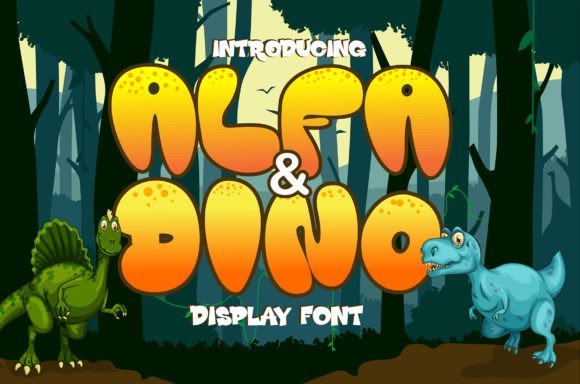
That’s where the Alfa and Dino Font comes in – a cool, incredibly cute and bubbly display font that’s perfect for adding a touch of whimsy to your designs. Whether you’re creating party invitations, social media graphics, or promotional materials, this font is sure to bring a smile to your audience’s faces. And for designers, it’s a valuable asset that can help you stand out from the crowd and create truly memorable designs.
Alfa and Dino Font Key Features
- Unique Characteristics: This font features a unique blend of modern and vintage elements, with distinctive letterforms and ornaments that evoke a sense of nostalgia and playfulness.
Designer Review: Alfa and Dino Font
First off, I want to say that I’m a fan of this font. It has a certain retro charm that can be quite appealing in the right context. ✨ The Alfa and Dino Font has a fun, carefree vibe that’s perfect for casual projects or designs where you want to add a bit of whimsy.
Here are some of the things that I think work well in this font:
- ✨ Unique character set: The font has a distinctive set of characters that are sure to stand out.
- ✨ Good legibility: The font is easy to read, even at smaller sizes.
- ✨ Versatility: Alfa and Dino Font can be used in a variety of contexts, from logos to body text.
Of course, no font is perfect, and Alfa and Dino Font has its limitations:
- ⚠️ Limited font weights: The font only comes in a few weights, which may limit its use in certain projects.
- ⚠️ Not suitable for formal designs: The font’s playful nature may not be suitable for more formal or professional projects.
Overall, I think Alfa and Dino Font is a great choice for designers looking for a fun, unique font. While it may have some limitations, its strengths make it a great addition to any design project.
For best results, use the Alfa and Dino Font for titles and headings to create a bold and eye-catching visual impact.
Use the Alfa and Dino Font to add a touch of retro flair to your designs and create a unique visual identity.
The Alfa and Dino Font is perfect for:
- Retro-themed designs and projects.
- Video game-inspired graphics and logos.
- Quirky and playful branding and marketing materials.